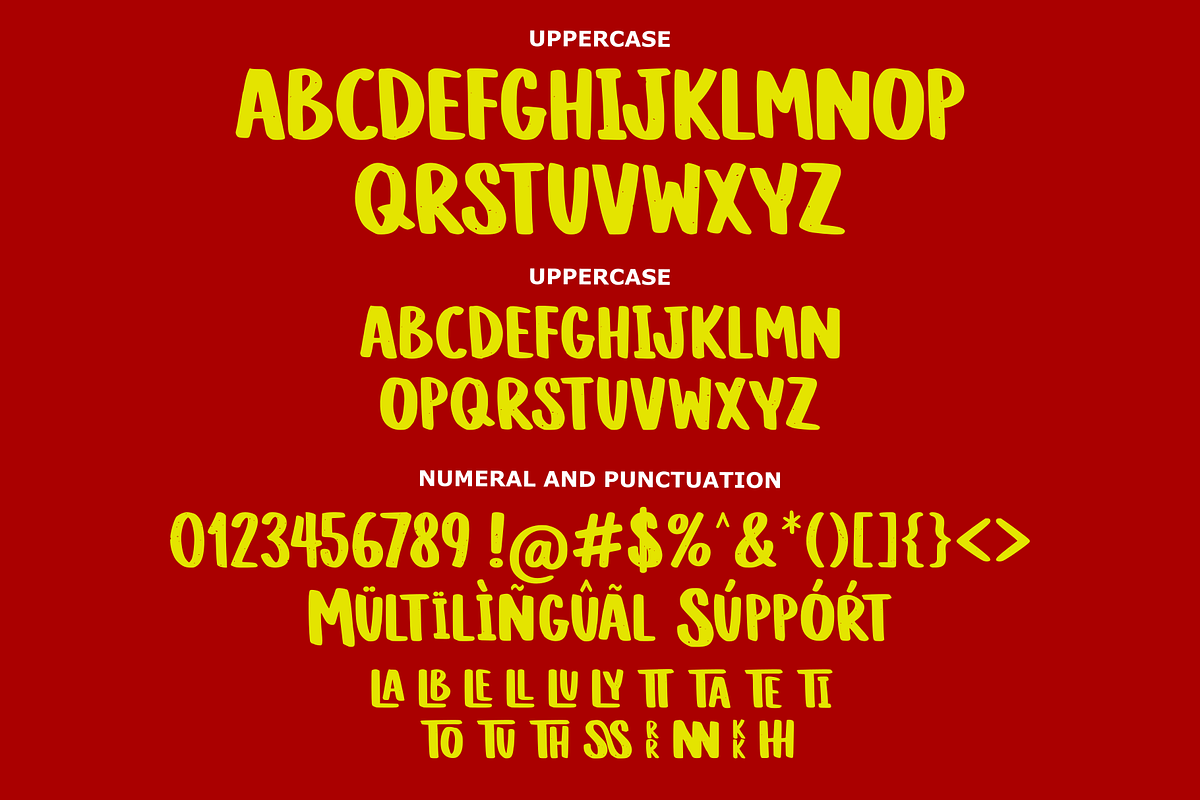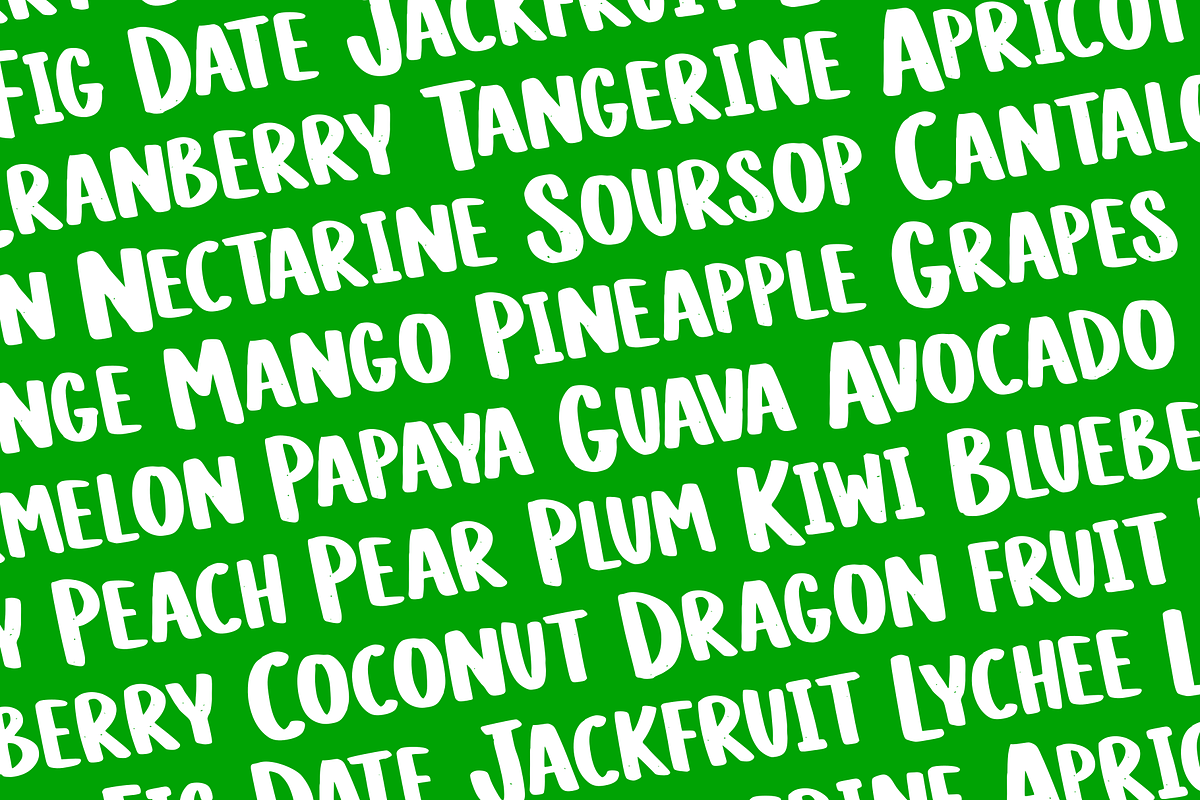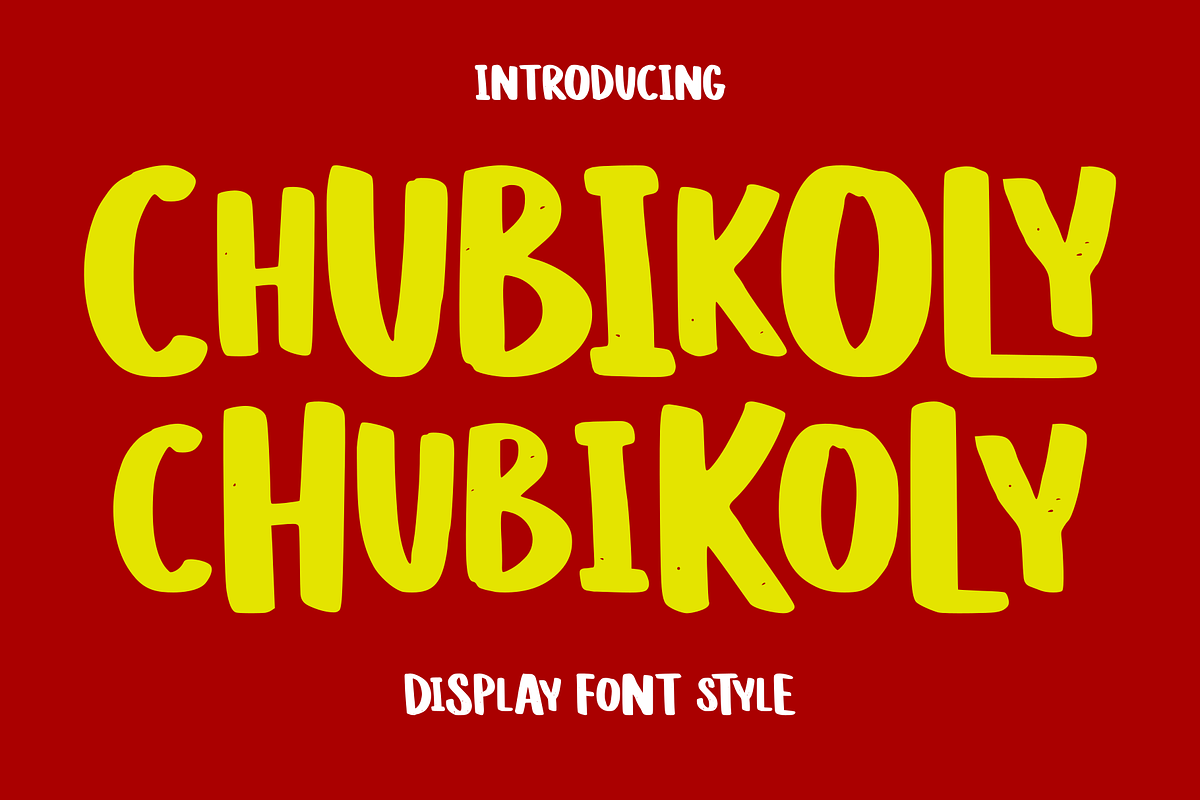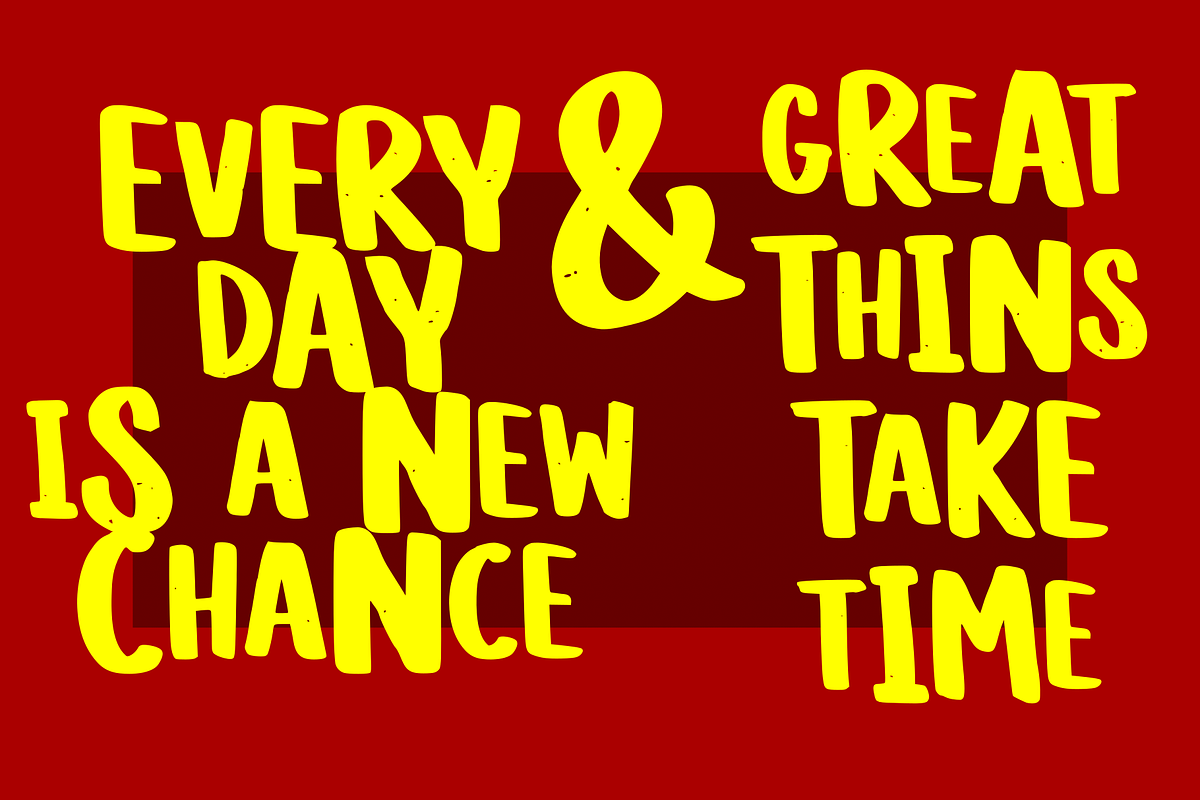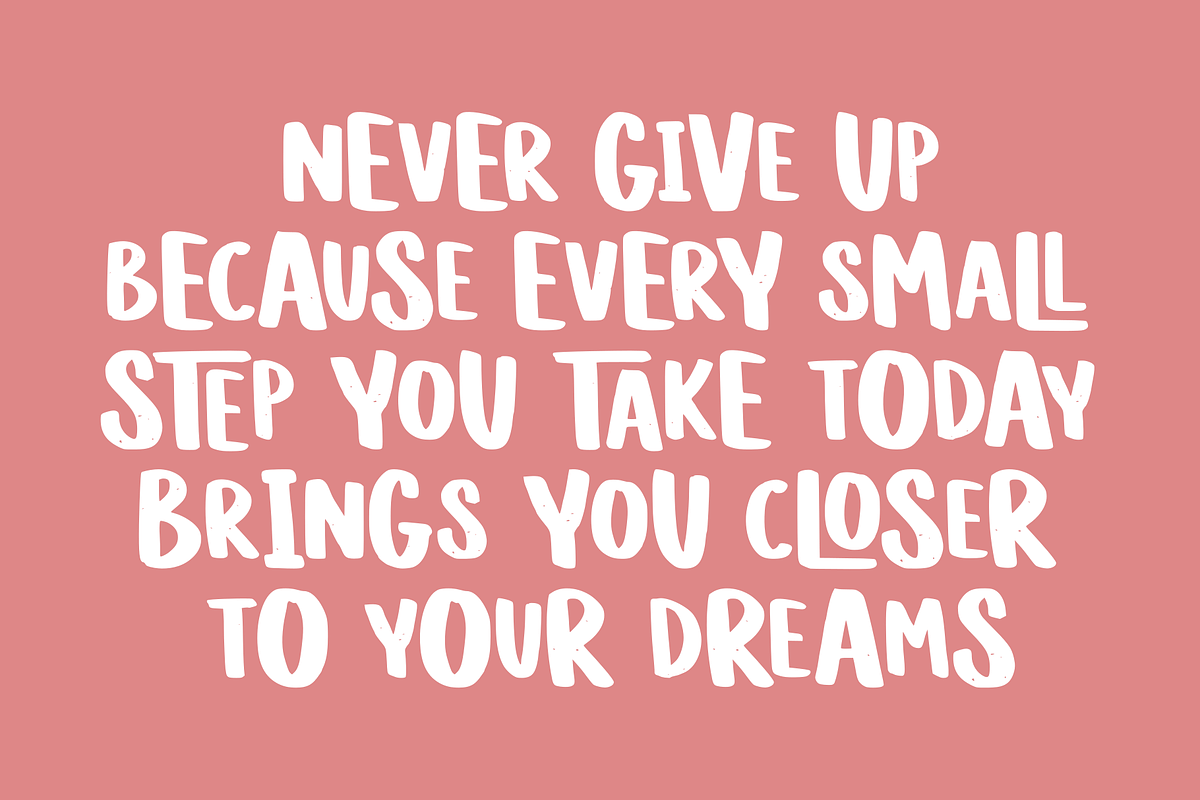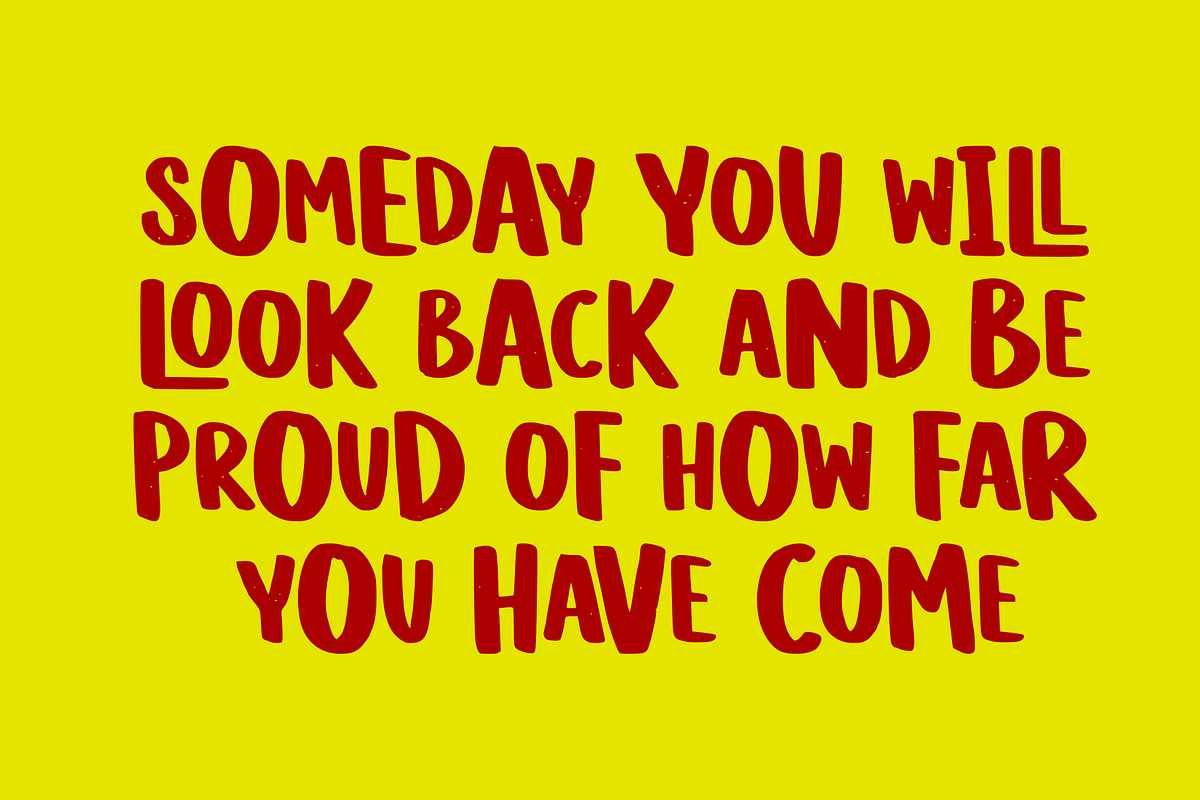
Chubikoly
Chubikoly is a cheerful and bold display font with thick, rounded letterforms that bring a fun and energetic feel to any design. The bold strokes and slightly irregular shapes create a friendly, cartoon-like personality, making it perfect for children's projects, posters, branding, packaging, and attention-grabbing headlines. Chubikoly adds a playful and lively touch that immediately catches the eye and makes your designs feel more expressive and playful.